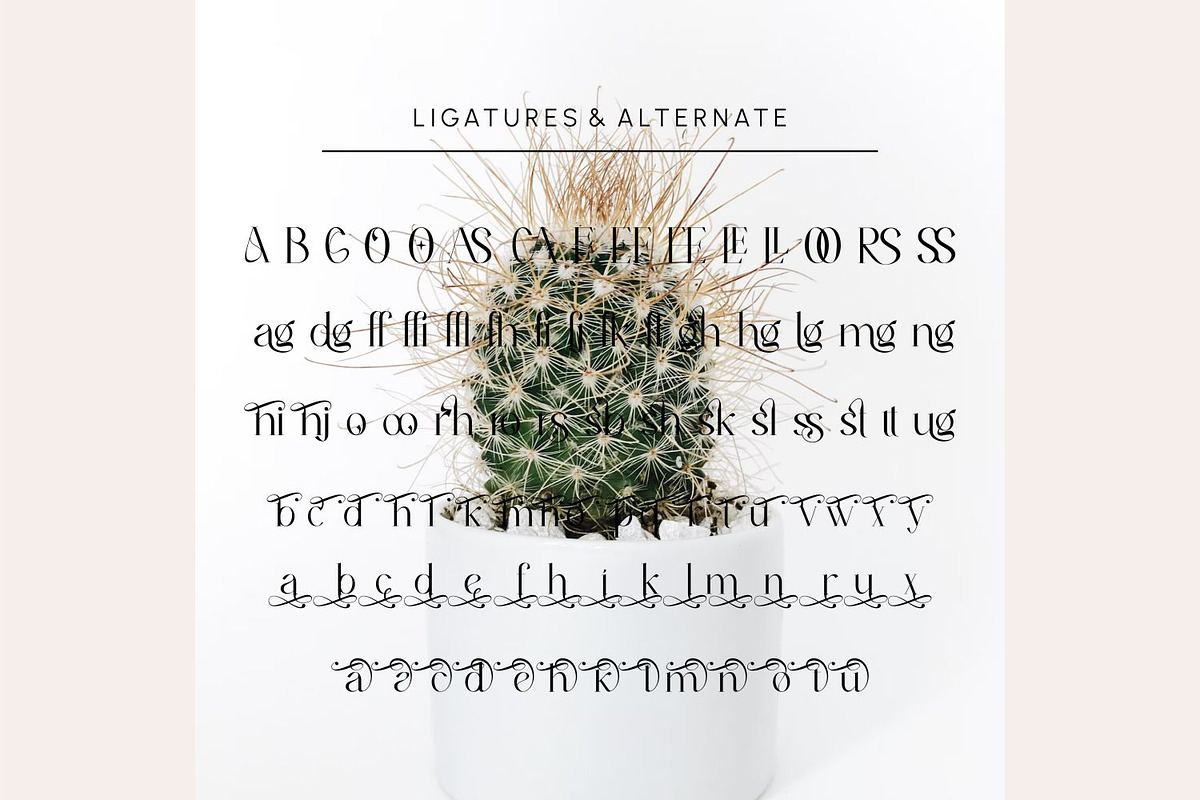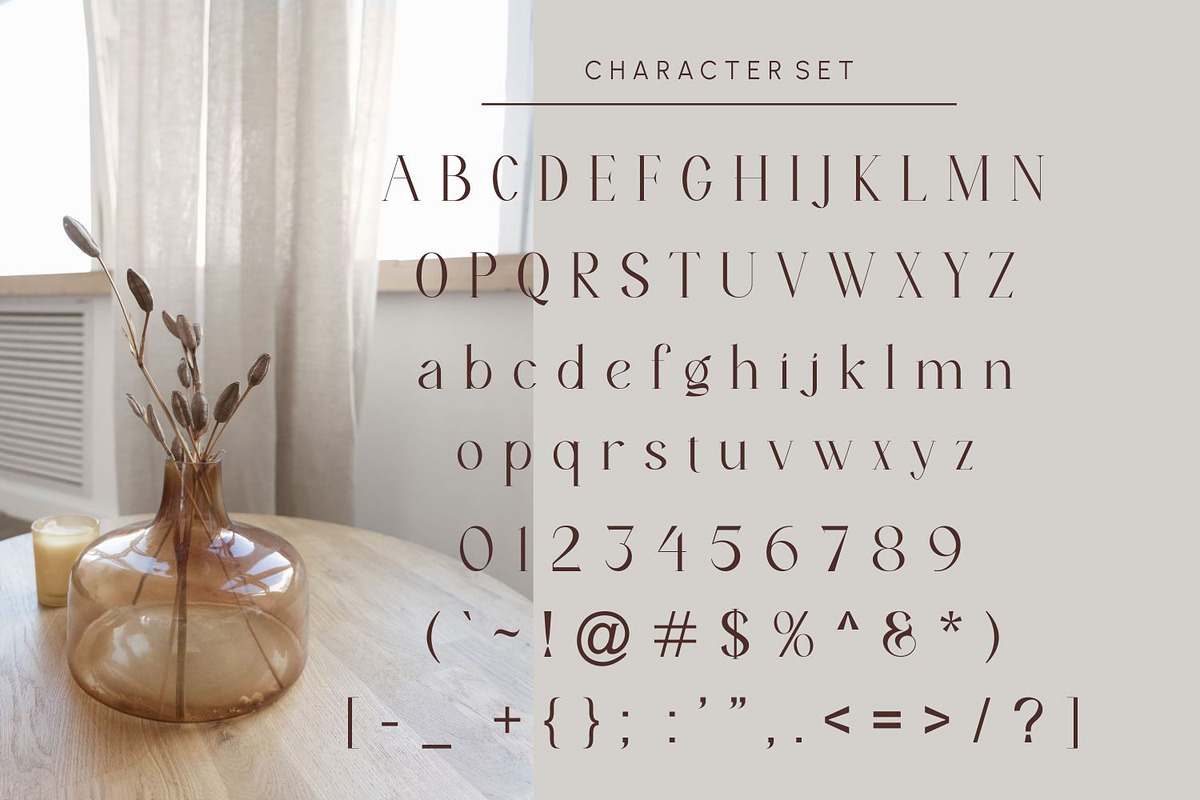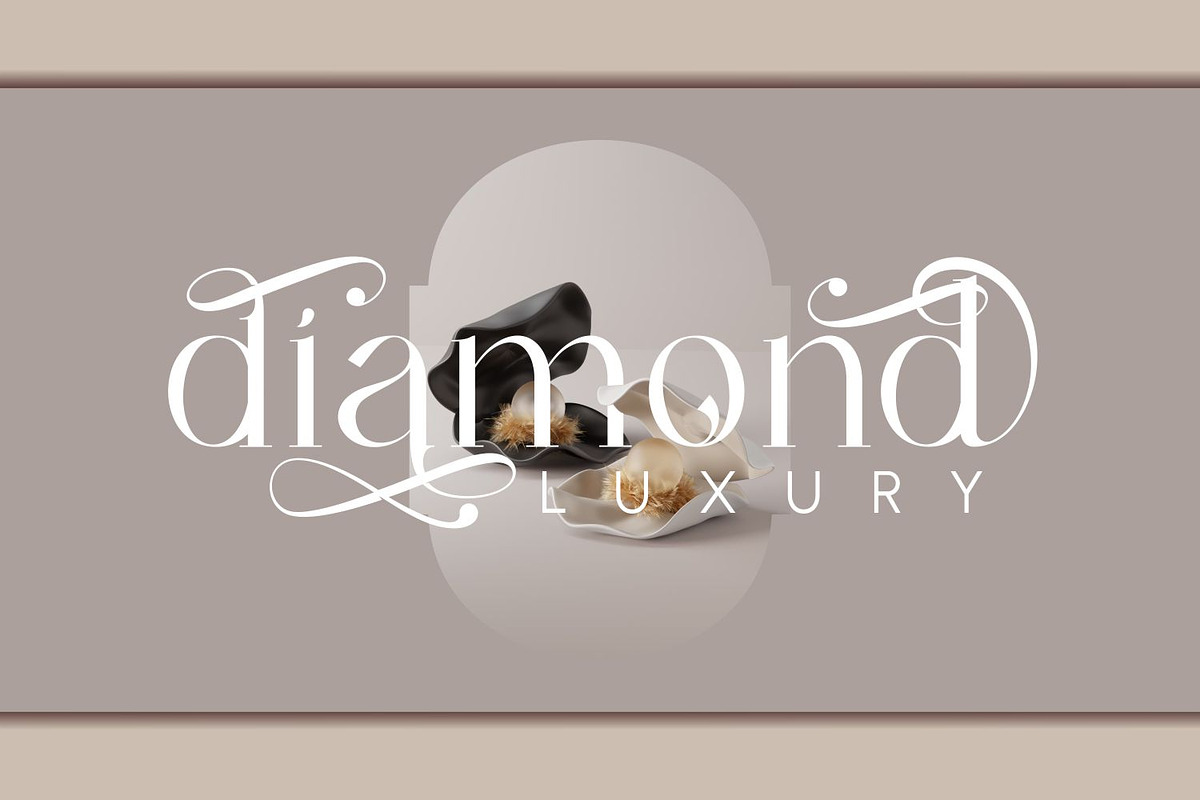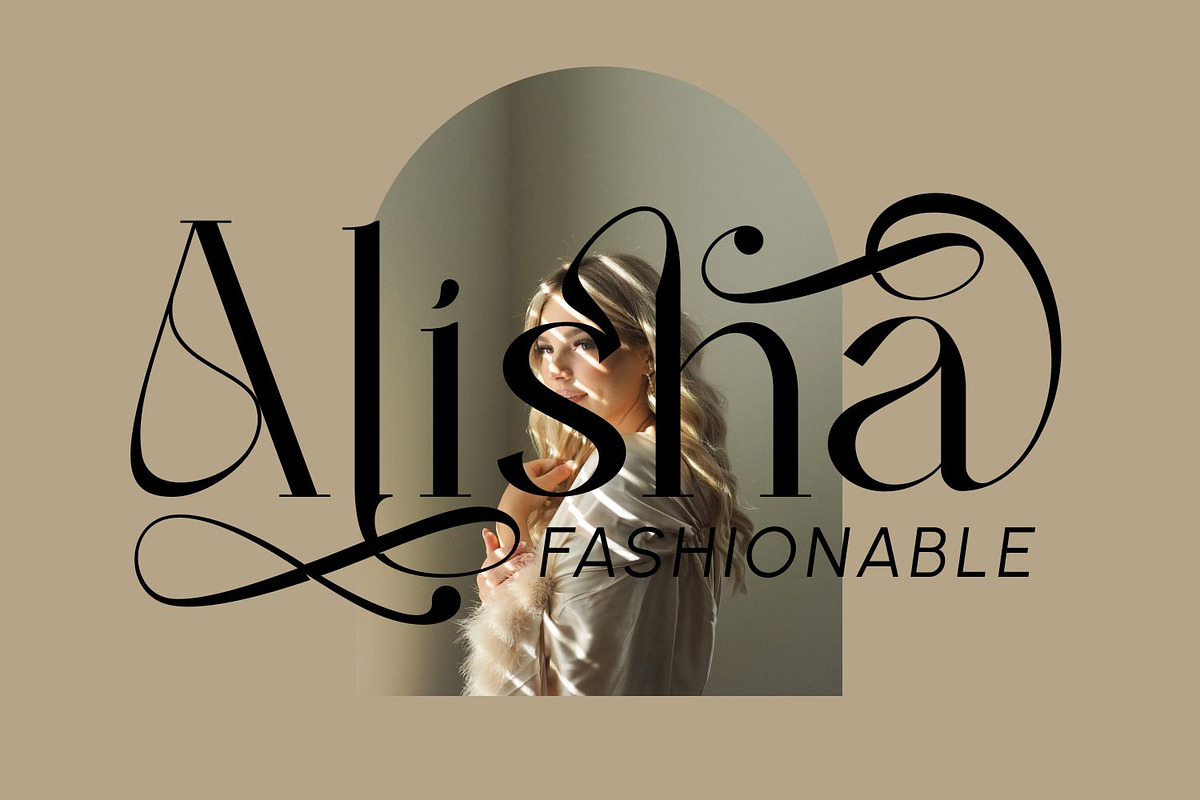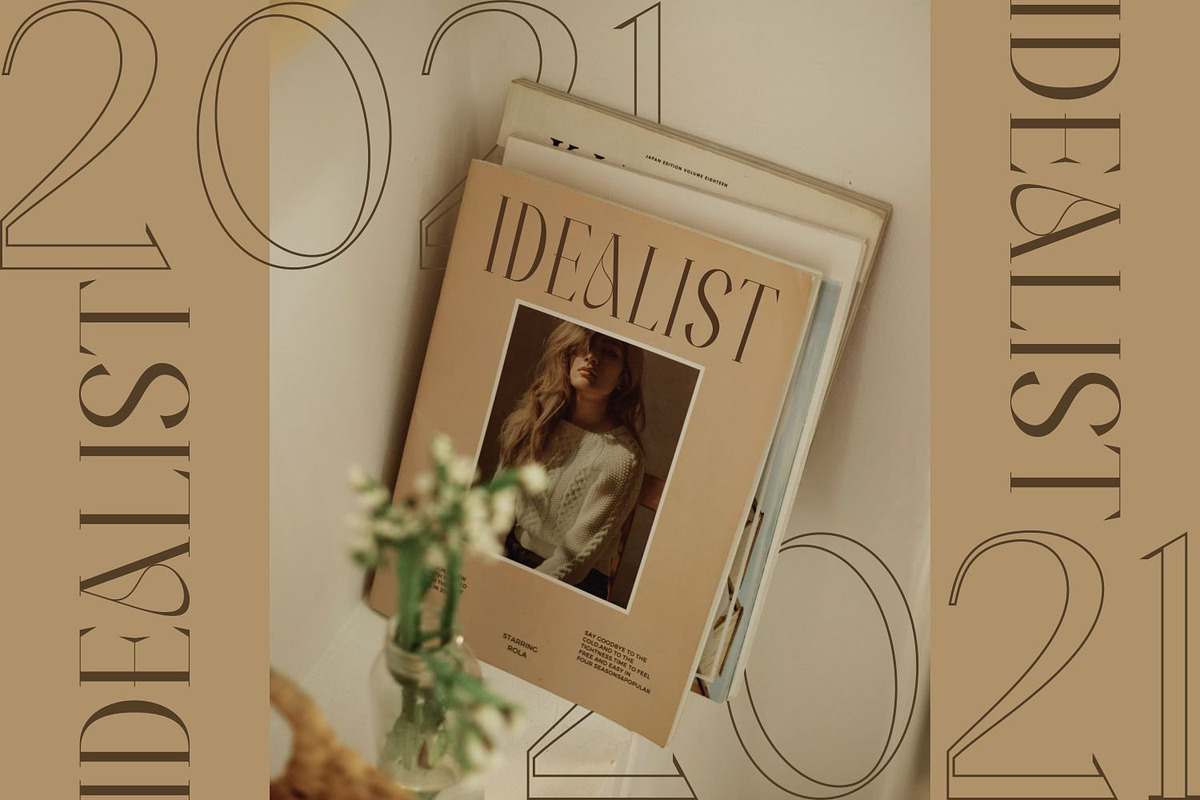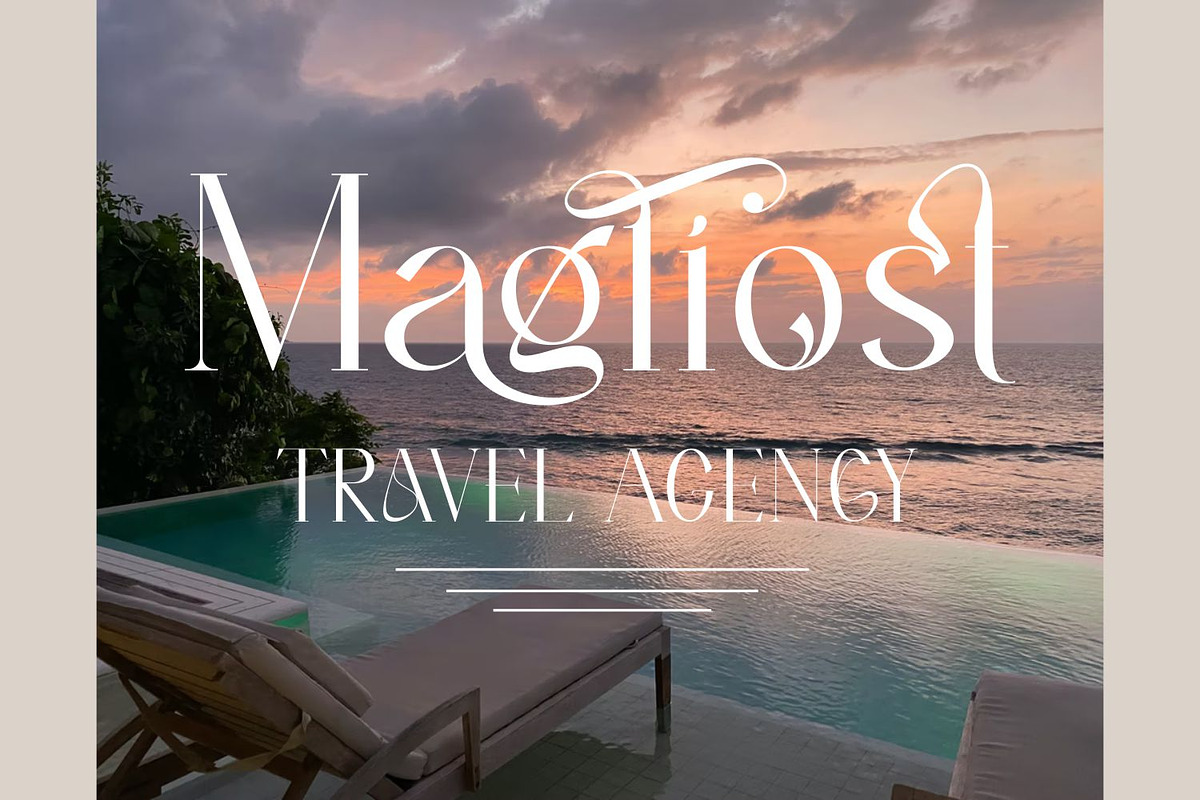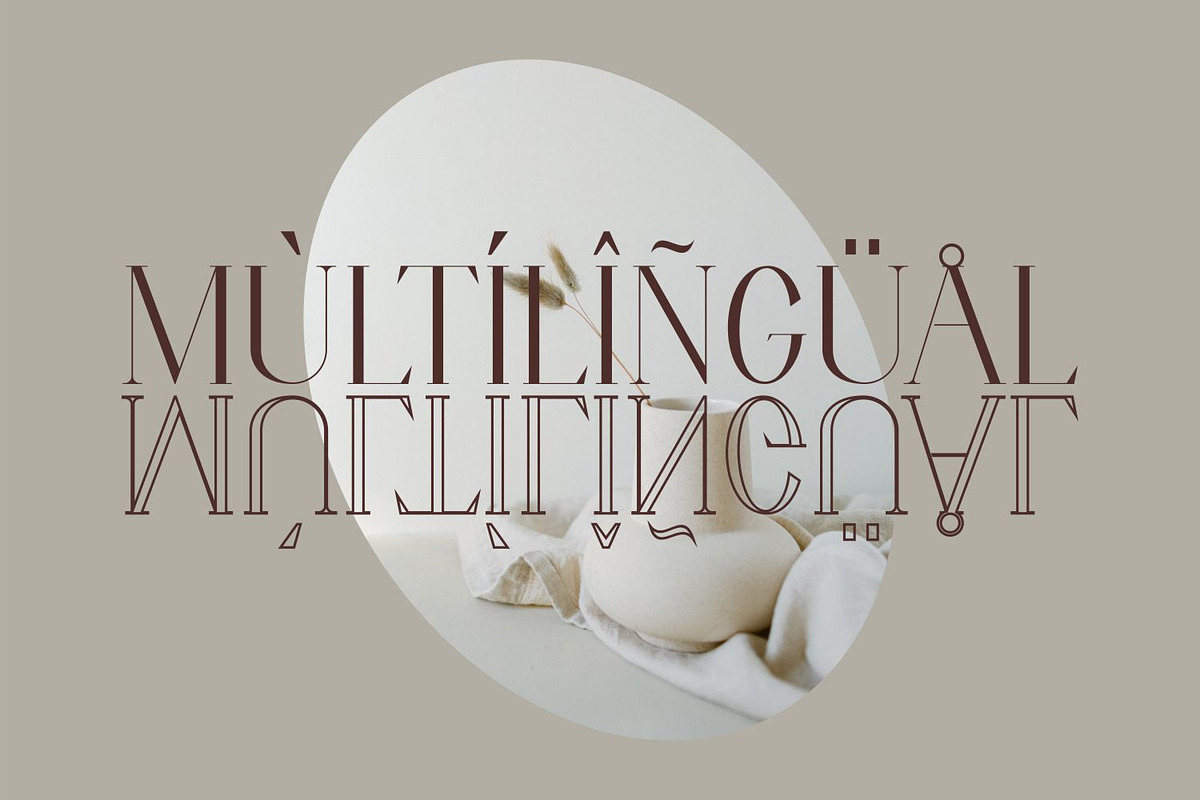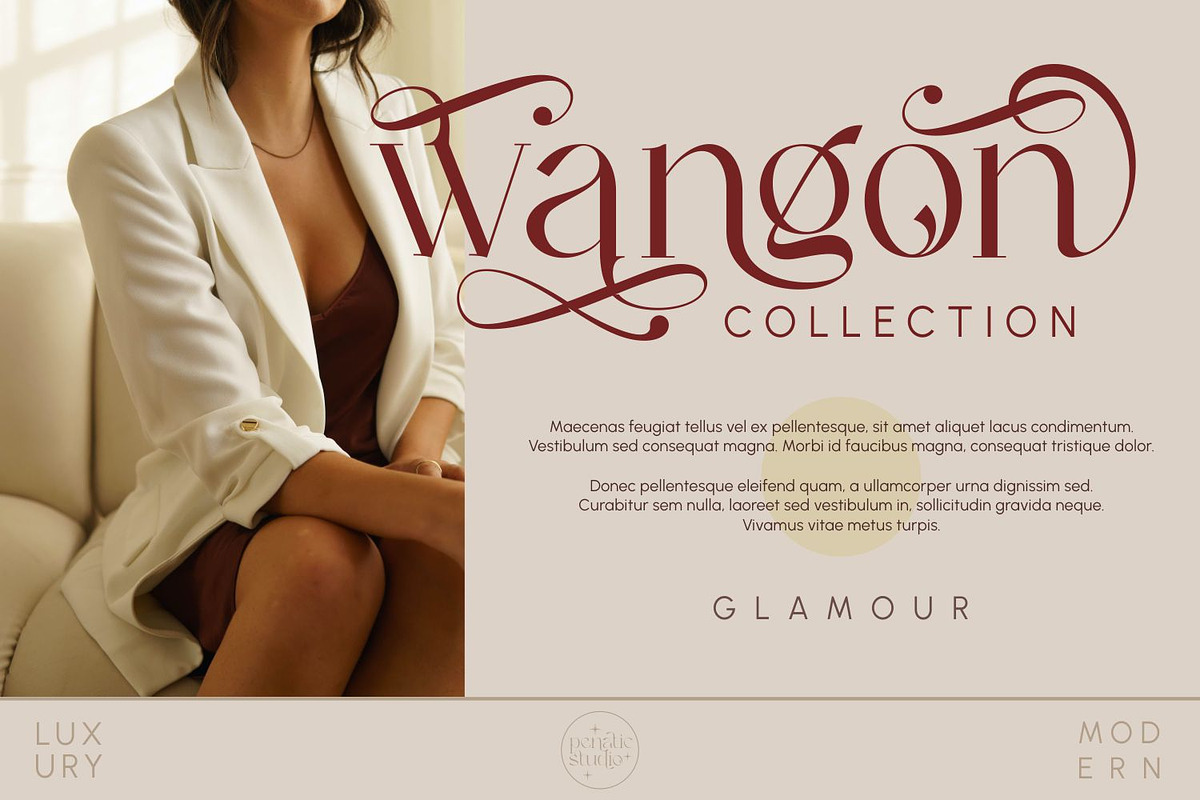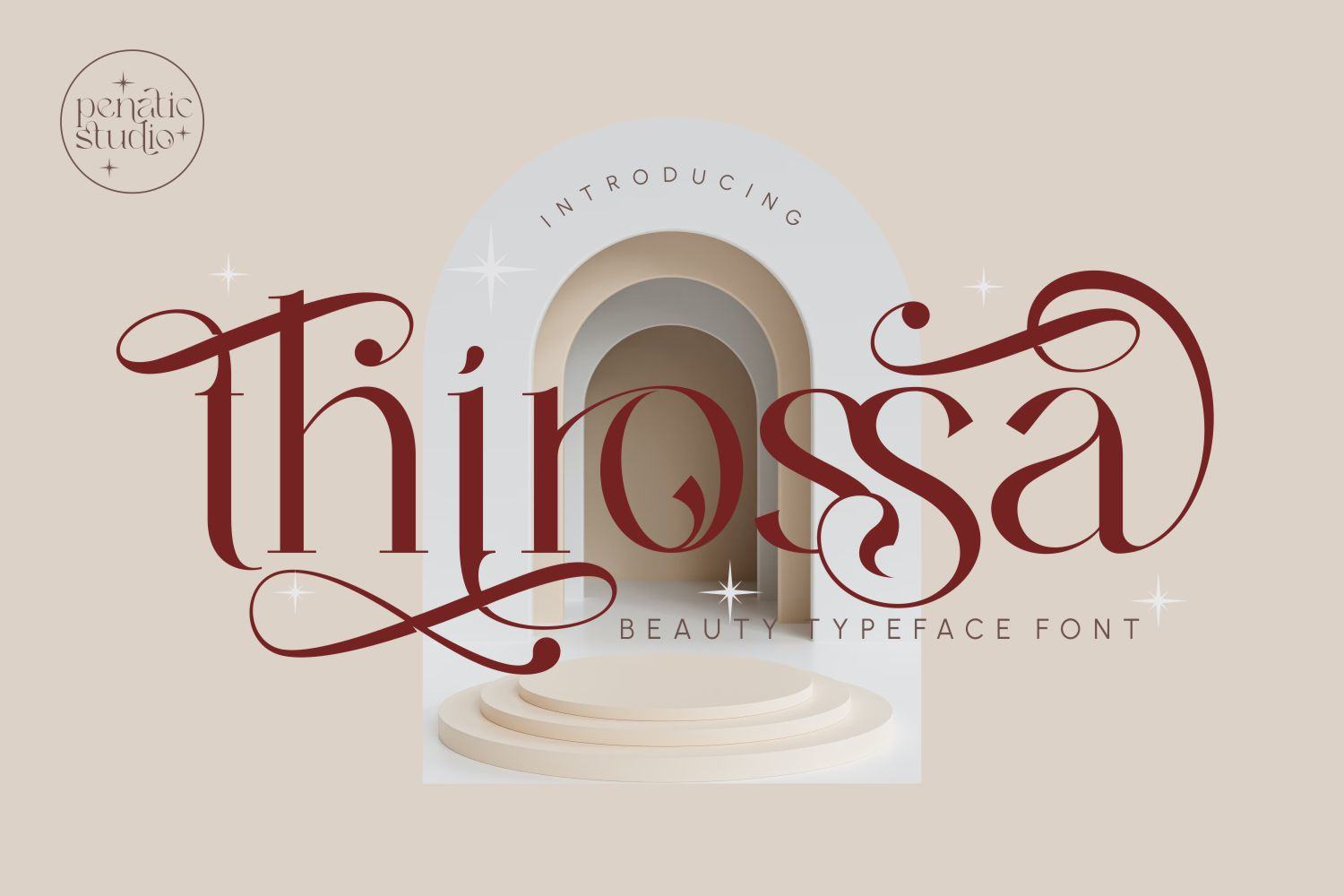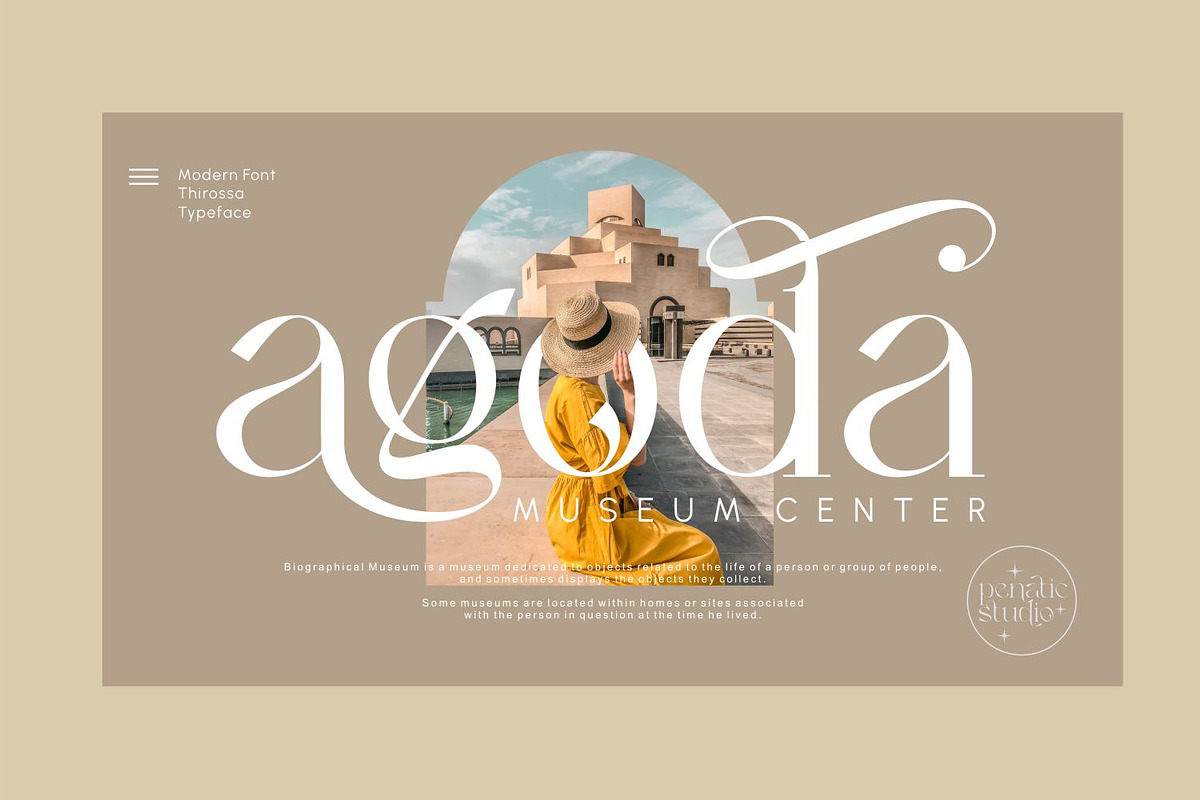
Thirossa _ beauty typeface
Hi everybody, on this occasion I would like to introduce a new product. which is named Thirossa. The font is very classic and elegant. certainly very suitable for all kinds of your brand identity and other nameplates.
The font is equipped with many ligatures and alternative letters that will make the letter more beautiful. so hurry to have and download it.
FEATURE
Lowercase
Number
Functional
glyph - style
Fastener